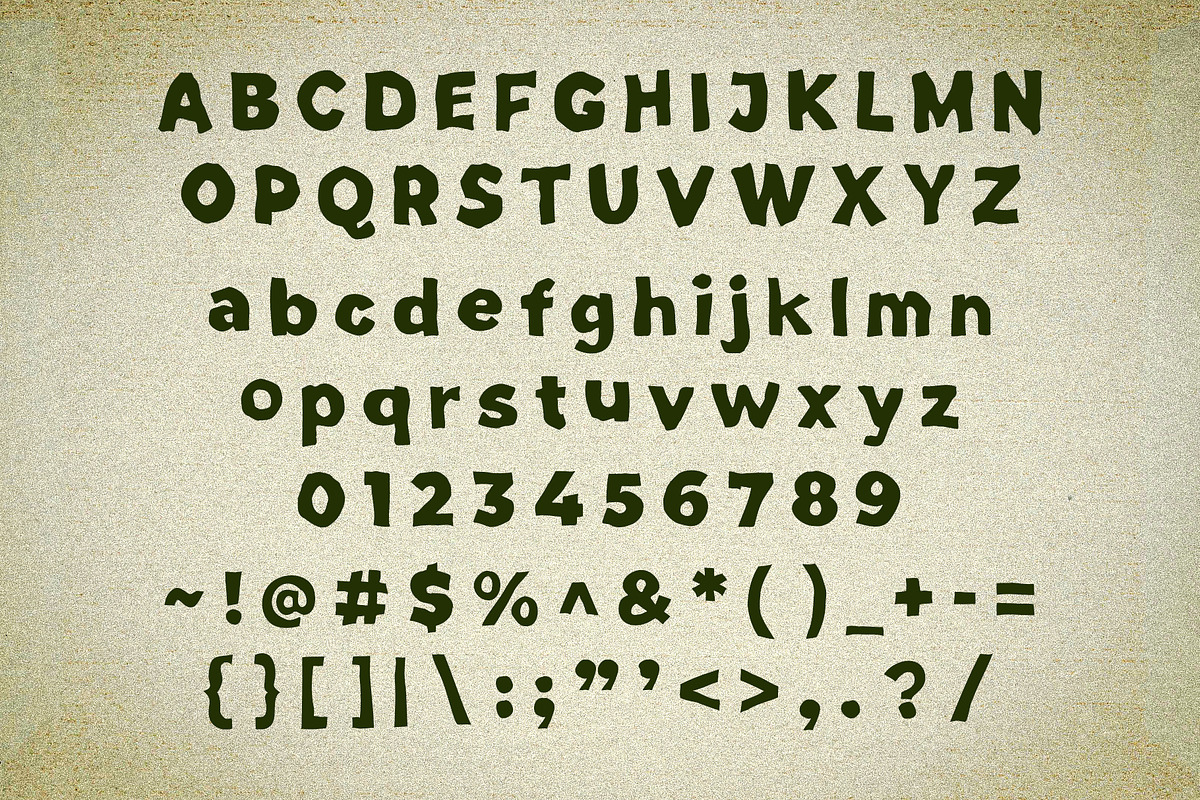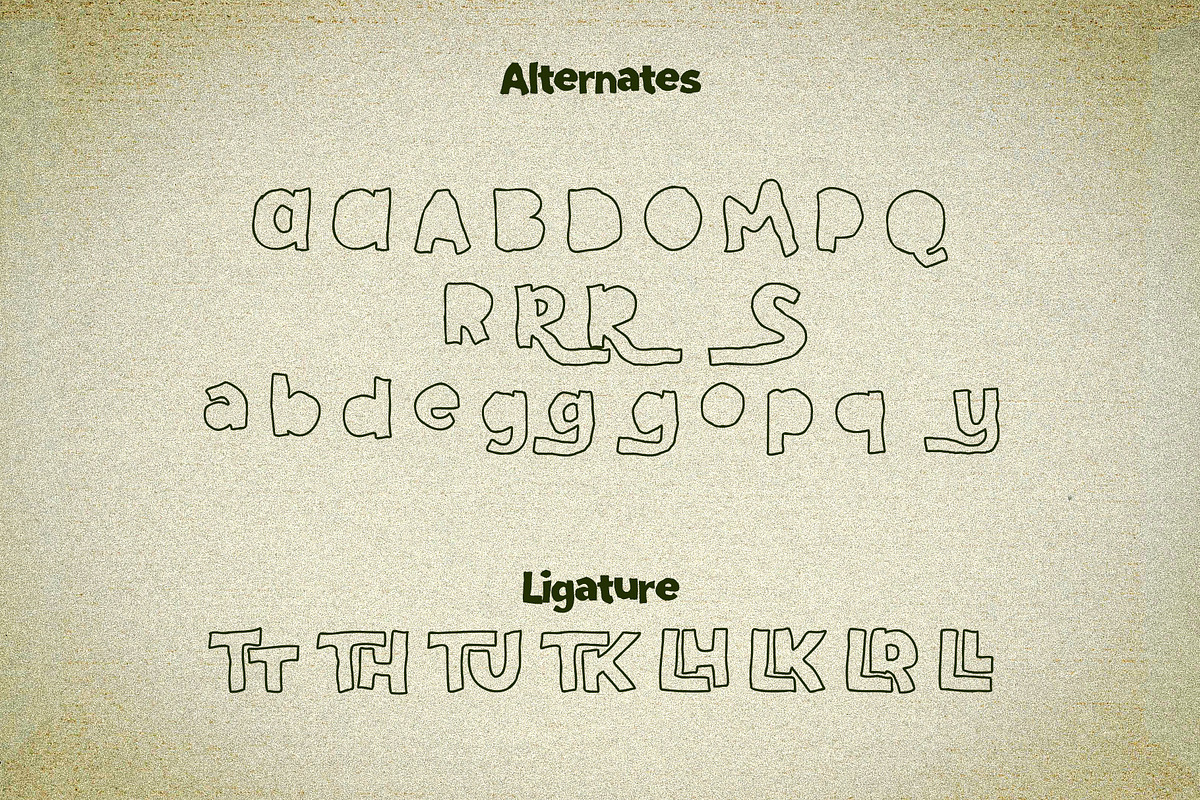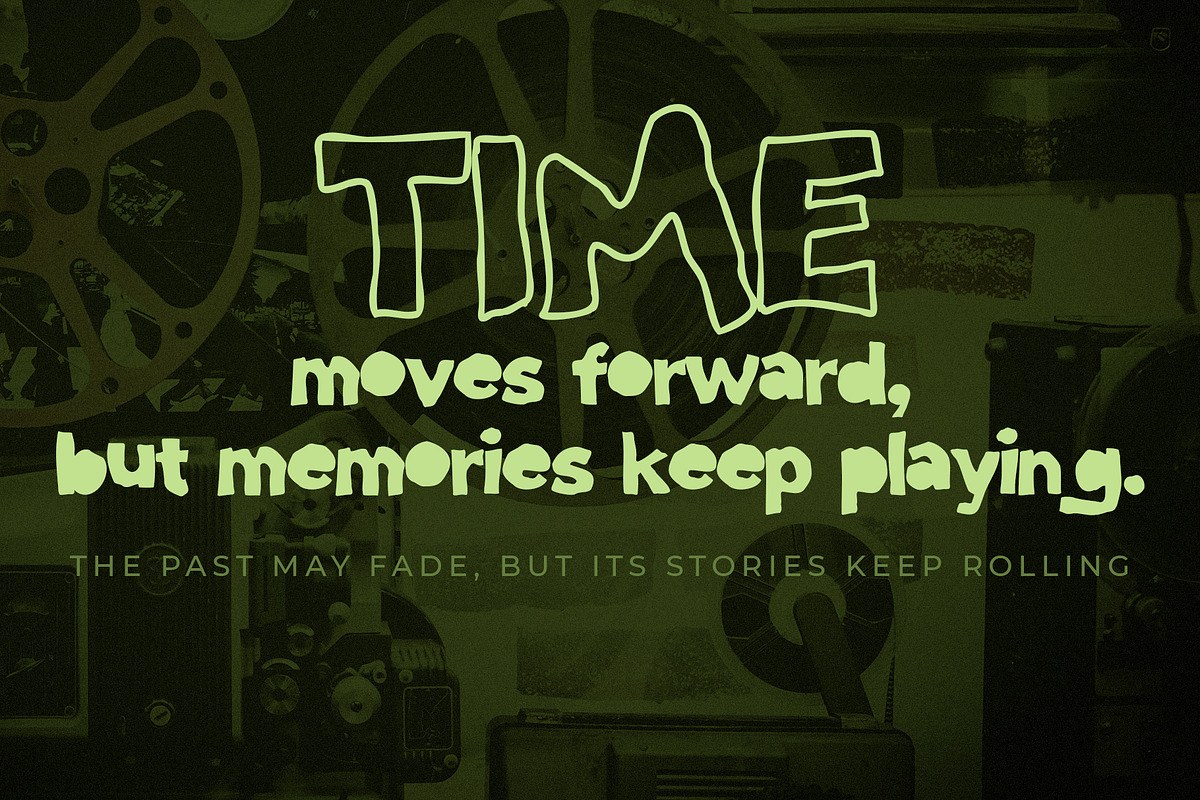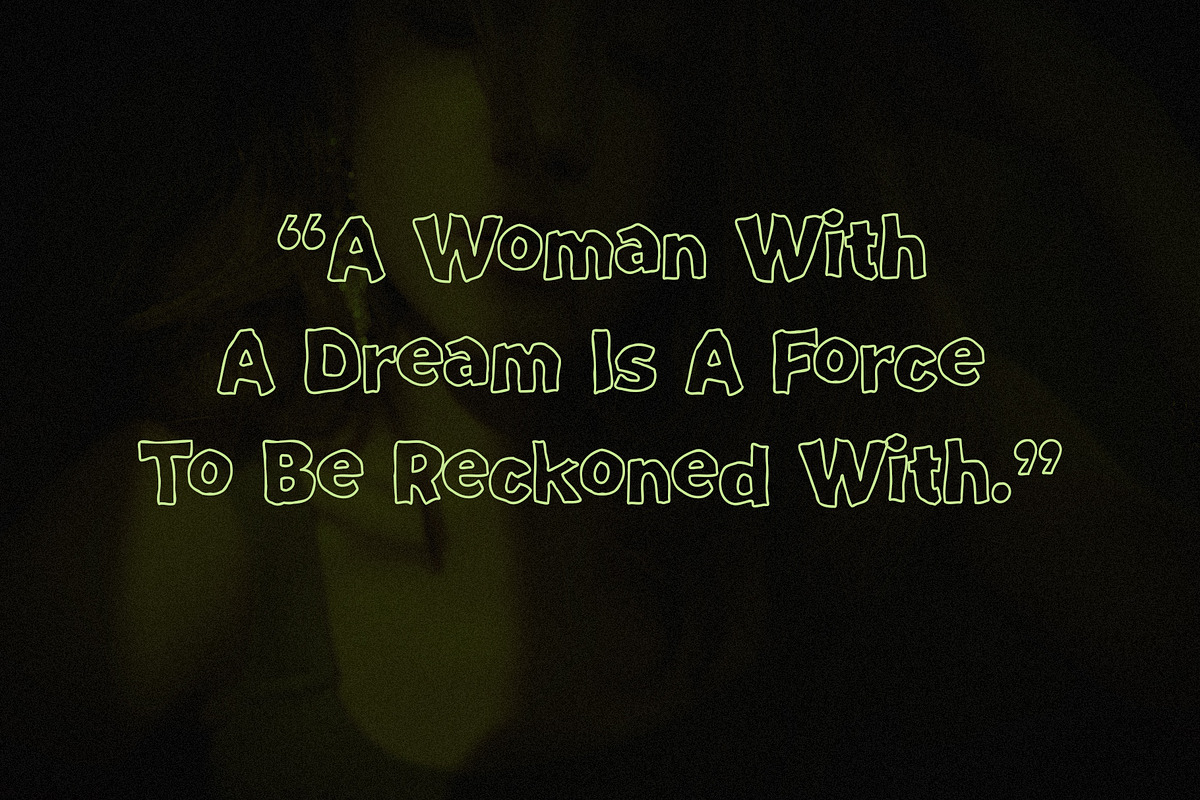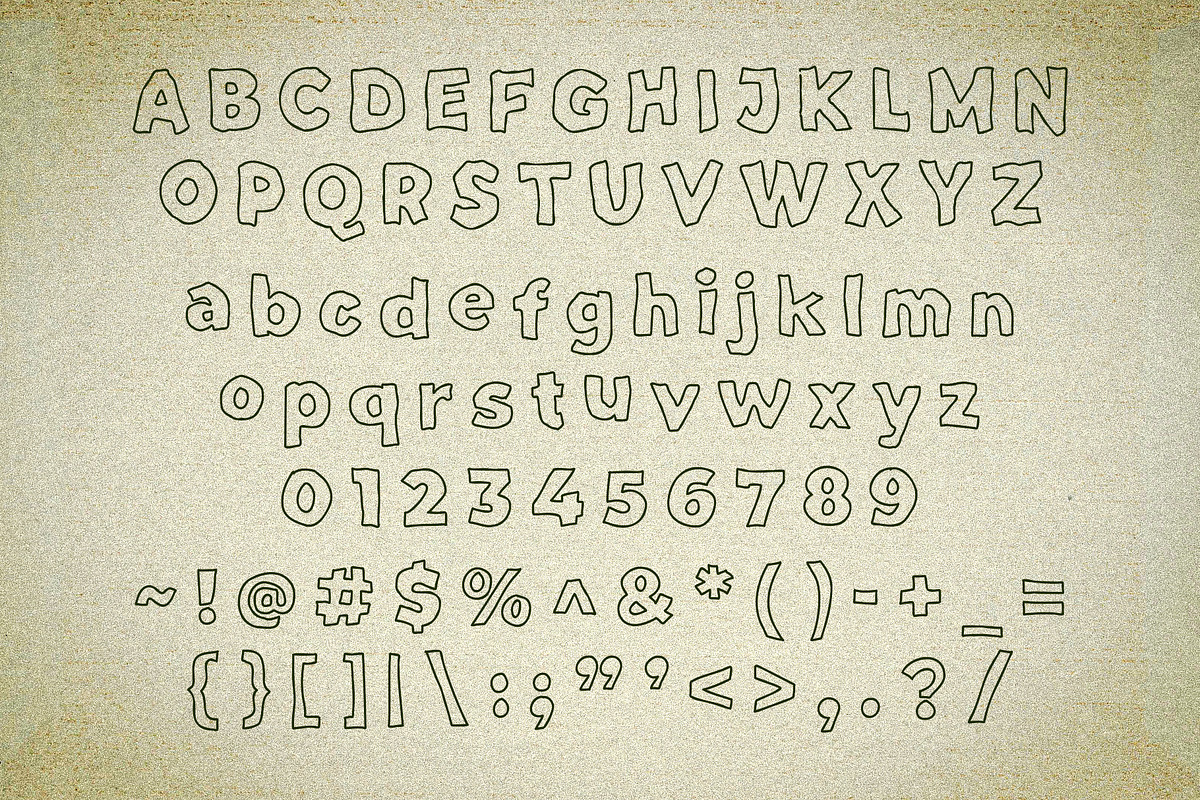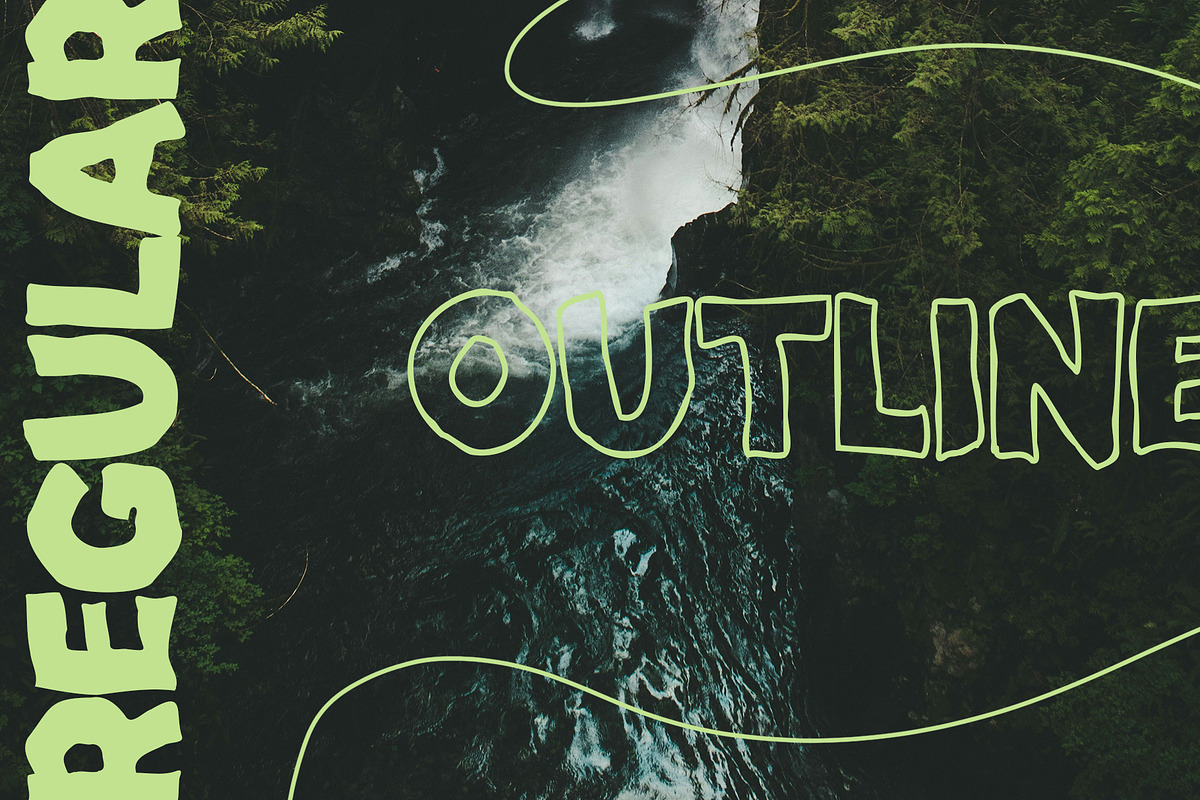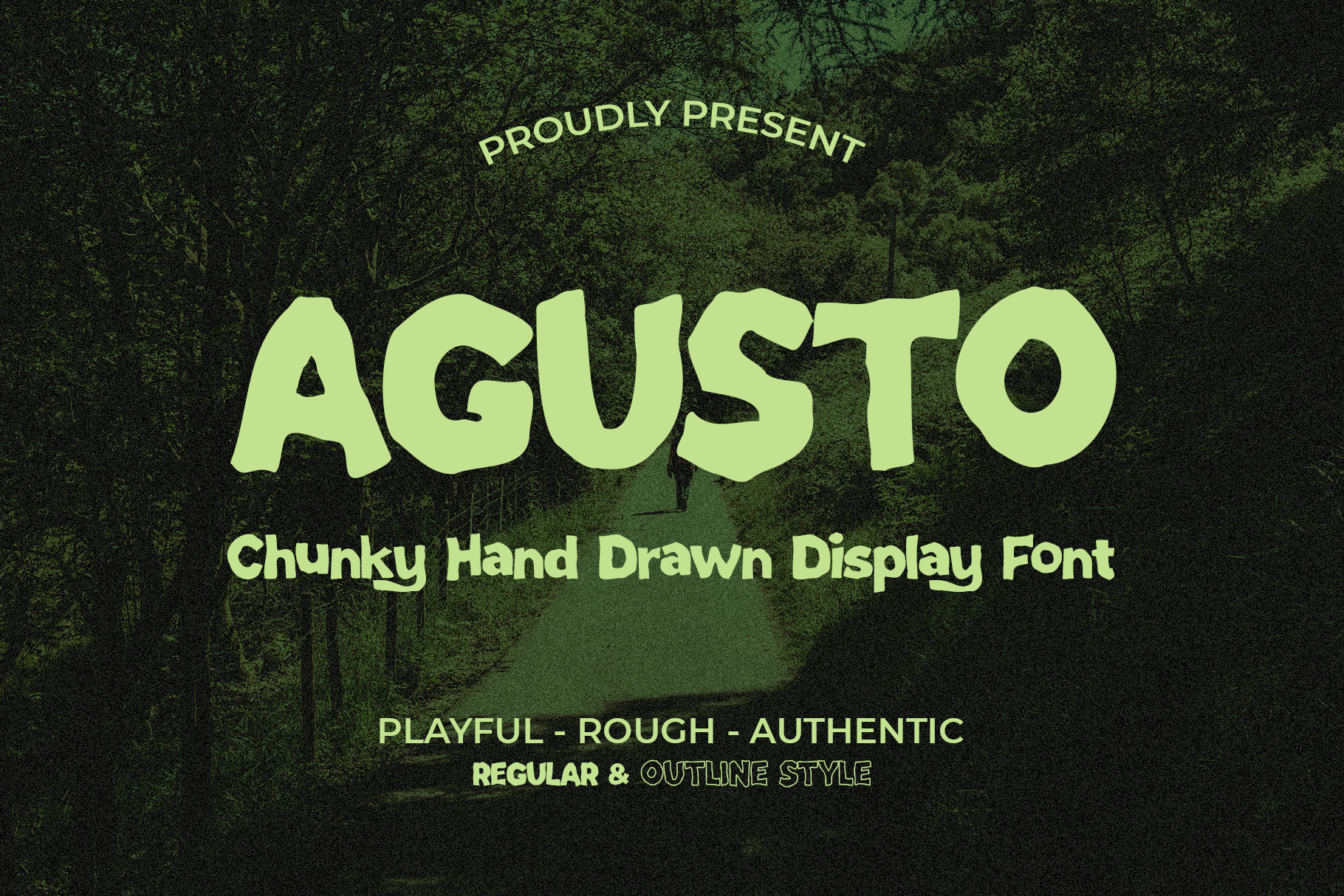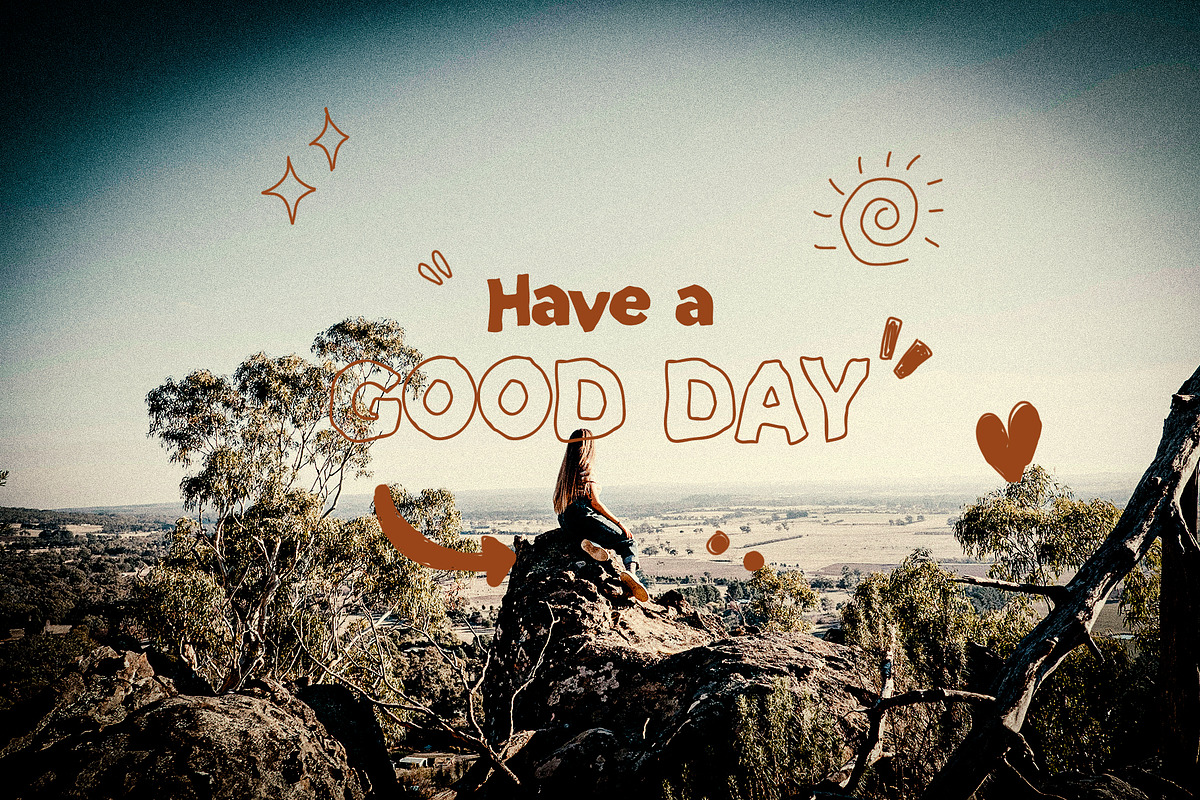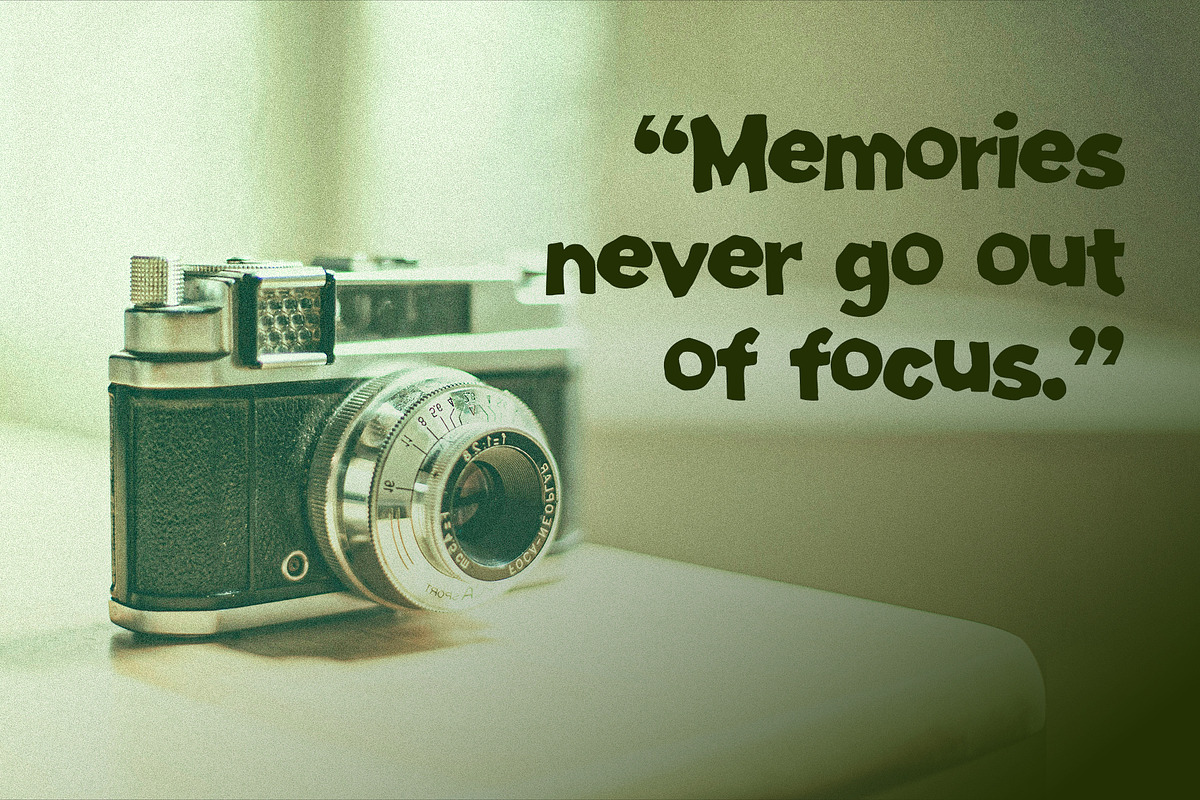
Agusto – Chunky Hand Drawn Font
AGUSTO is a bold and playful chunky hand-drawn display font with a rough, organic, and authentic personality.
Designed with irregular handmade shapes and expressive forms, AGUSTO is perfect for projects that need a fun and distinctive typographic style. Use it for posters, t-shirts, apparel, logos, branding, stickers, packaging, invitations, social media designs, children's projects, and more.
AGUSTO comes with Regular and Outline styles, allowing you to easily create different looks and layer typography for more creative compositions.
Chunky hand-drawn display style
Playful and expressive letterforms
Rough & organic appearance
Regular style
Outline style
Great for large headlines and display typography
A full set of uppercase and lowercase letters.
Numbers, punctuation, and symbols.